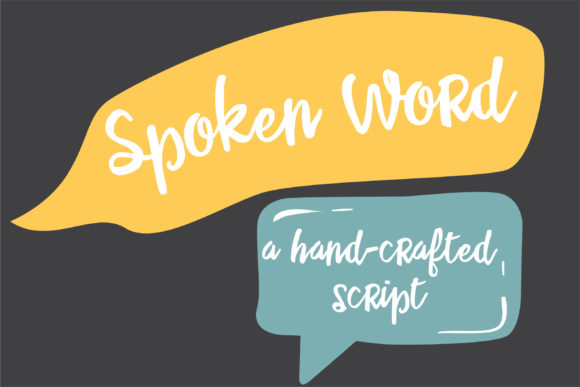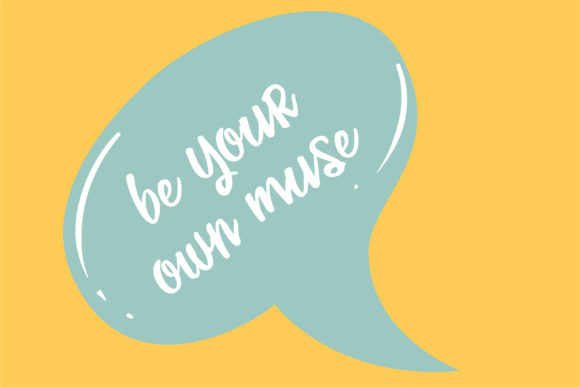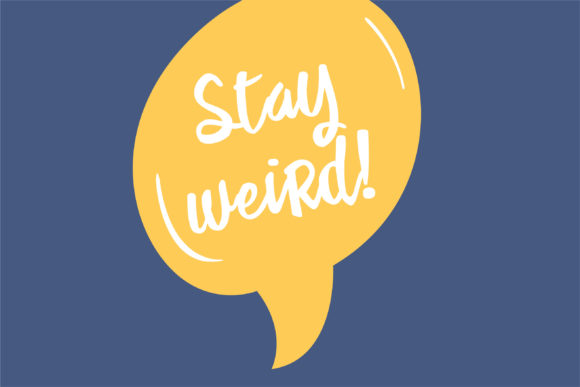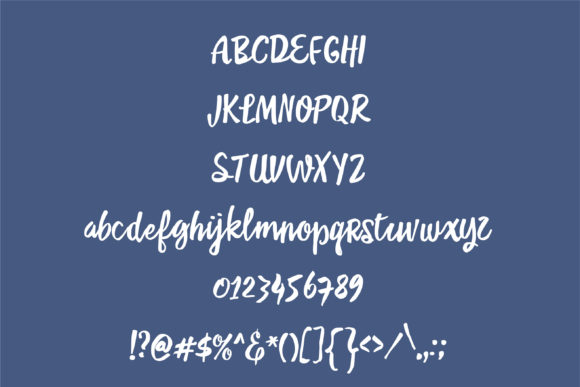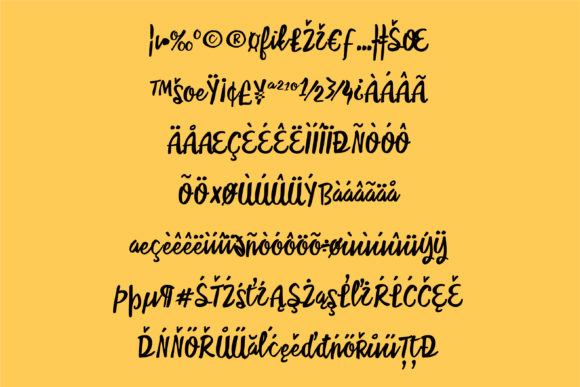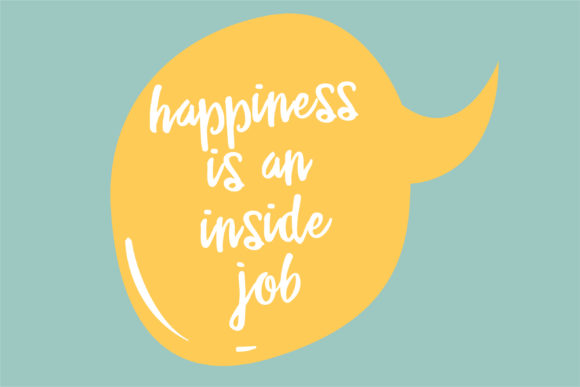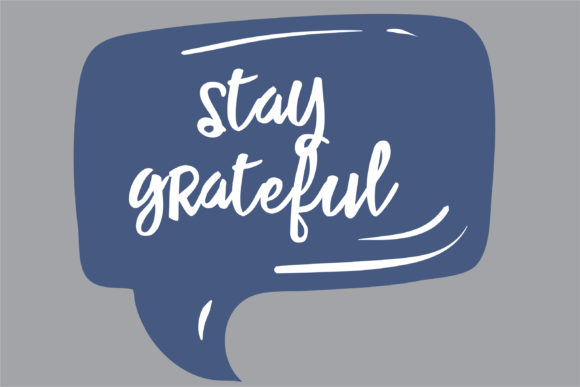
PN Spoken Word Font
About PN Spoken Word Font
Spoken Word is a sweet and flowing handwritten font, described by an elegant touch, perfect for your favorite projects. Fall in love with its incredibly distinct and timeless style and use it to create spectacular designs!